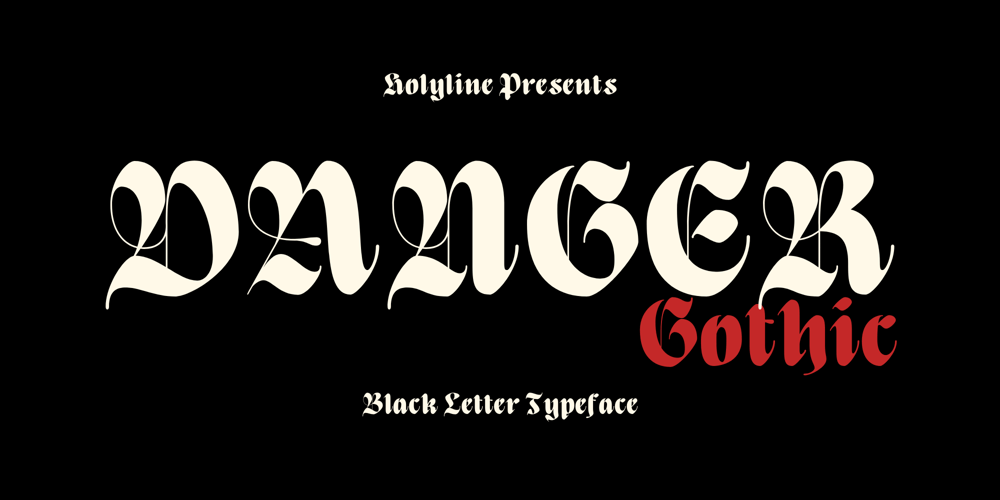
Danger Gothic Font Family was designed by Bagus Beratha Wijaya and published by holyline design. Danger Gothic contains 1 styles and family package options. Danger Gothic by Holyline is a casual black letter typeface. This font comes with modern and unique shape inspire by Old English style. It’s very unique, playful, elegant and very easy to combine with your design style. Danger Gothic perfect for headline, Magazine ,custom logo, packaging, quote, merchandise, watermark, social media posts, label, anything for your creativity and Danger Gothic is perfect font if you want something new with your project. Happy creating!